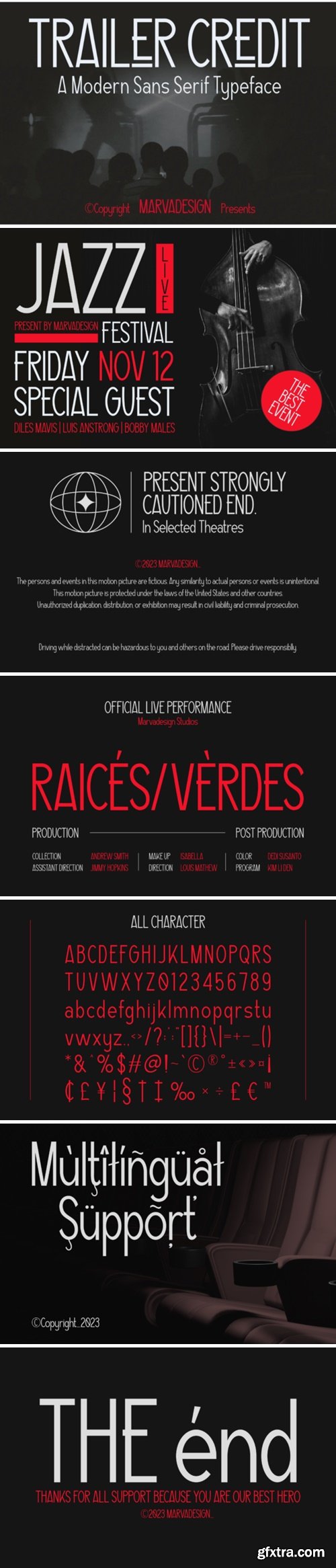
Trailer Credit is a modern font that is clean and simple, making it easy to read. It has a sleek, sans-serif style, which means it doesn’t have any small lines at the ends of the letters. This font is perfect for contemporary designs and gives a fresh, professional look to any text.